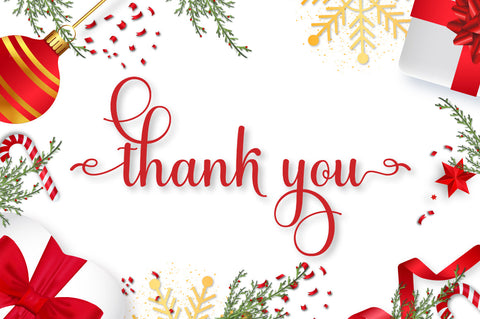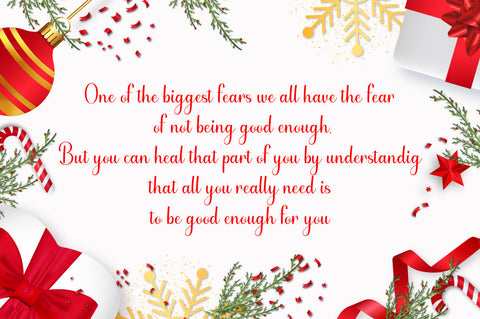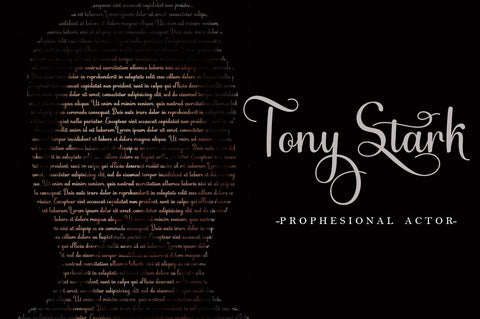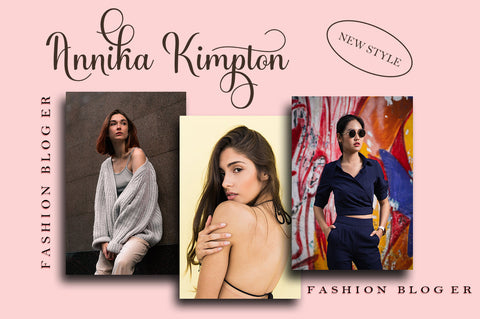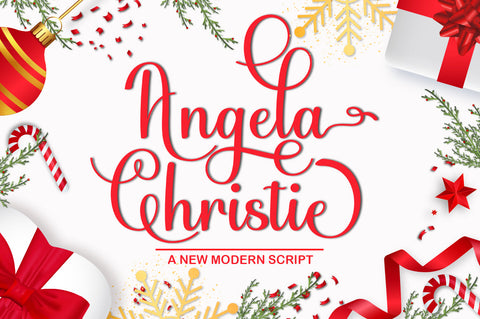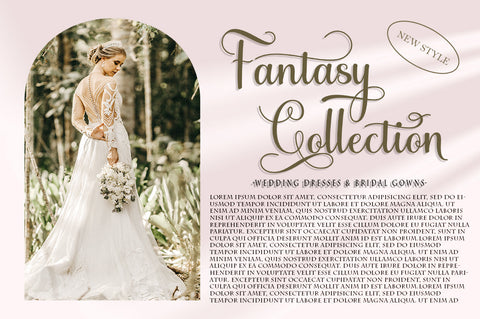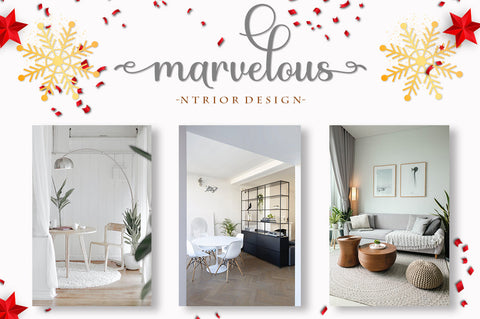
Angela Christie
Angela Christie is a smooth, elegant and flowing handwritten font. It has a beautiful and balanced character and as a result, fits into a wide set of designs. Angela Christie features varied baselines, smooth lines, beautiful glyphs, and stunning alternatives. Add to your most creative ideas and watch how they come to life!